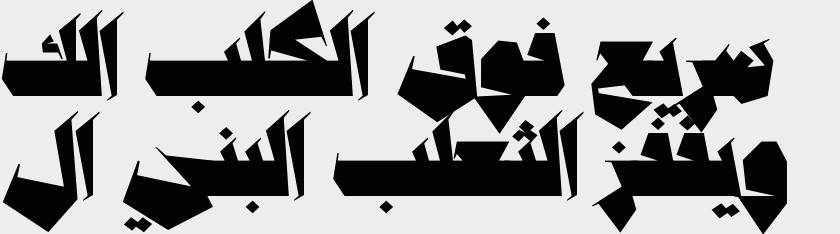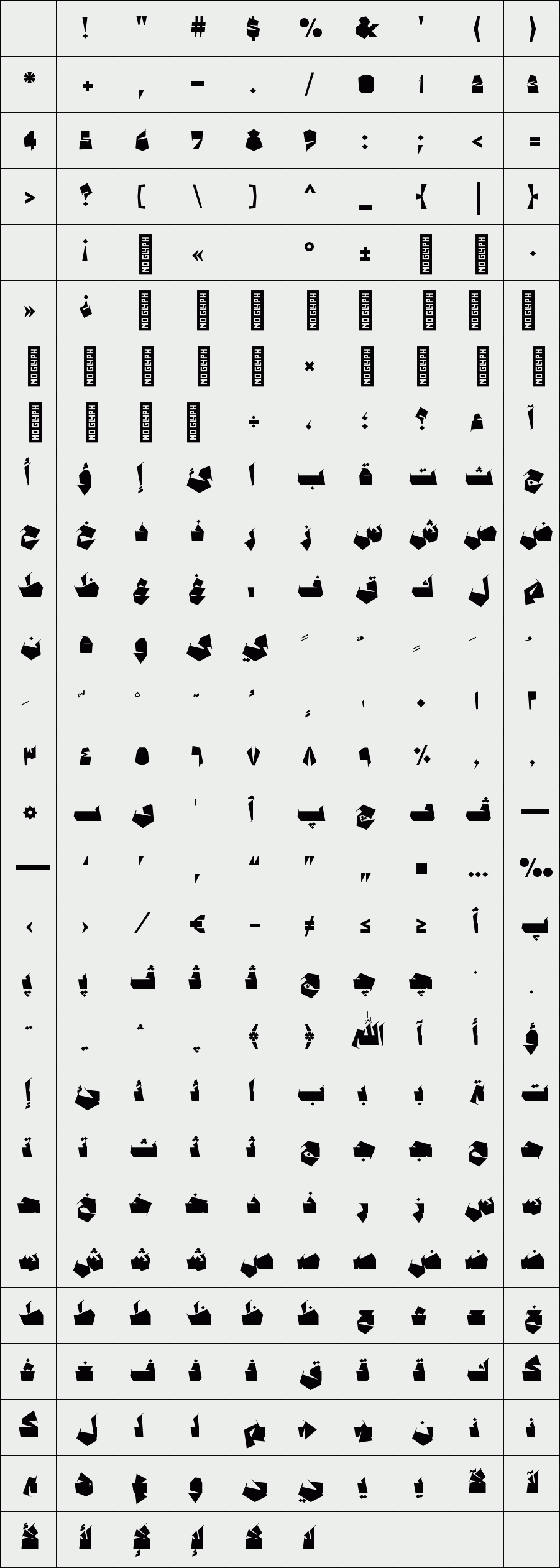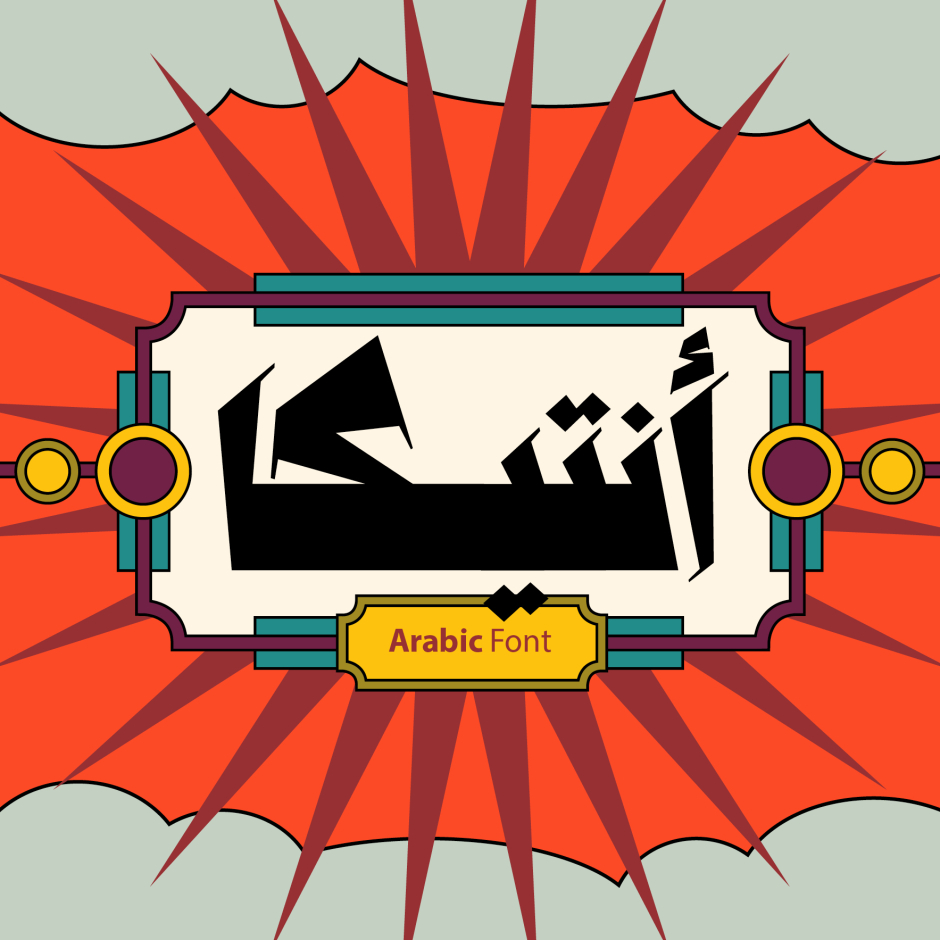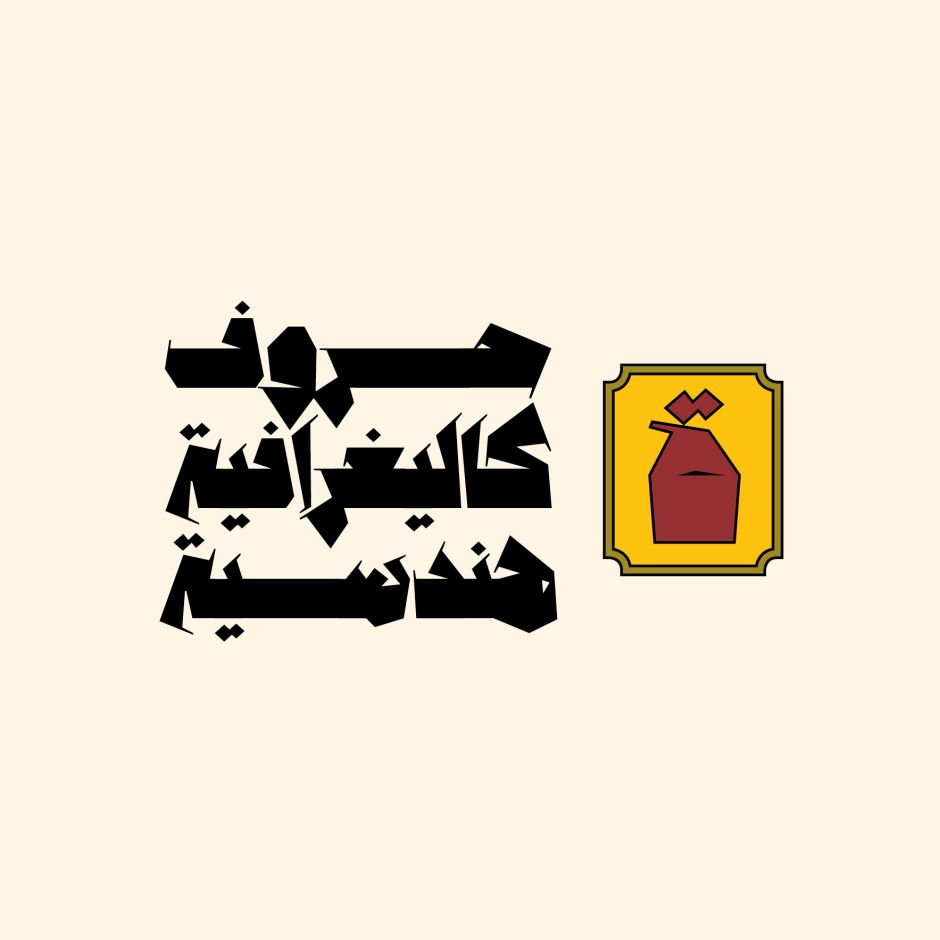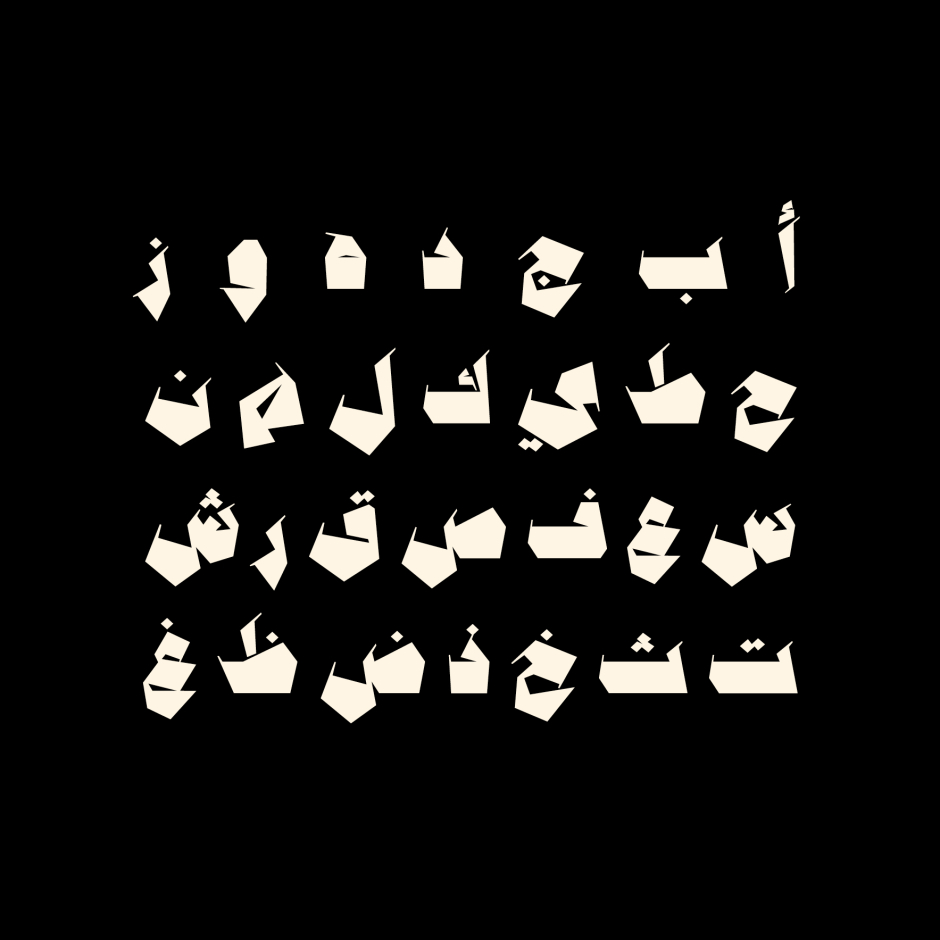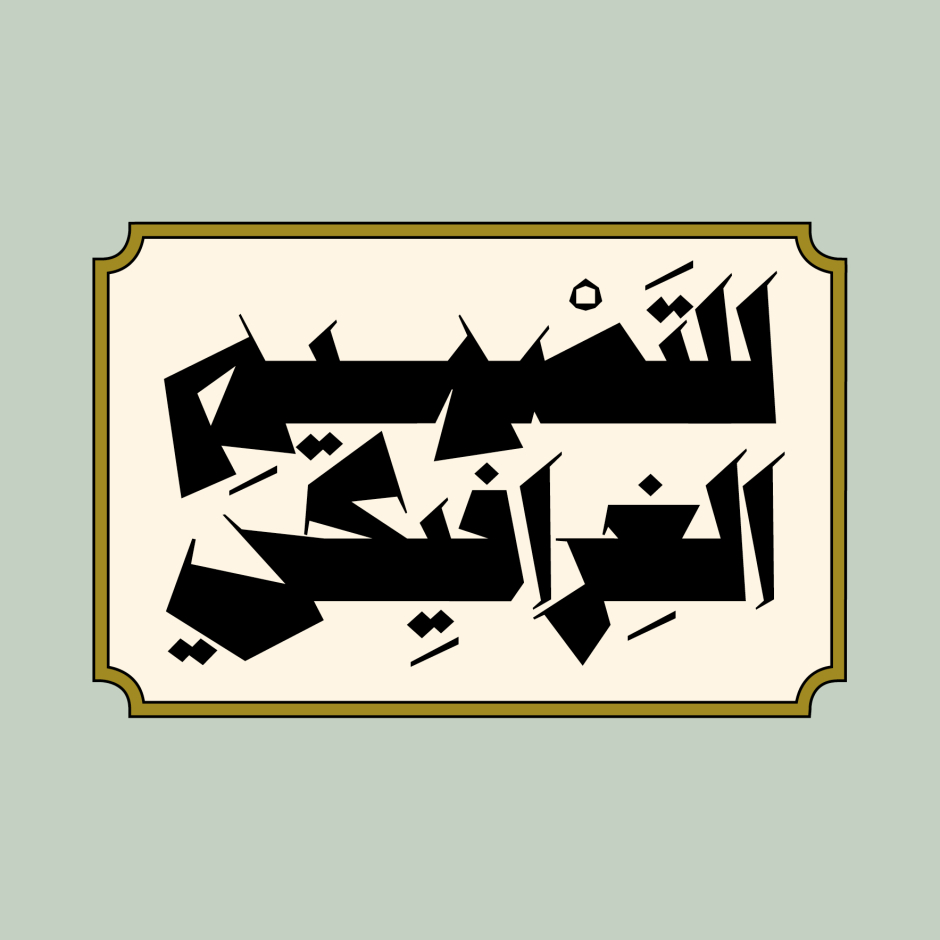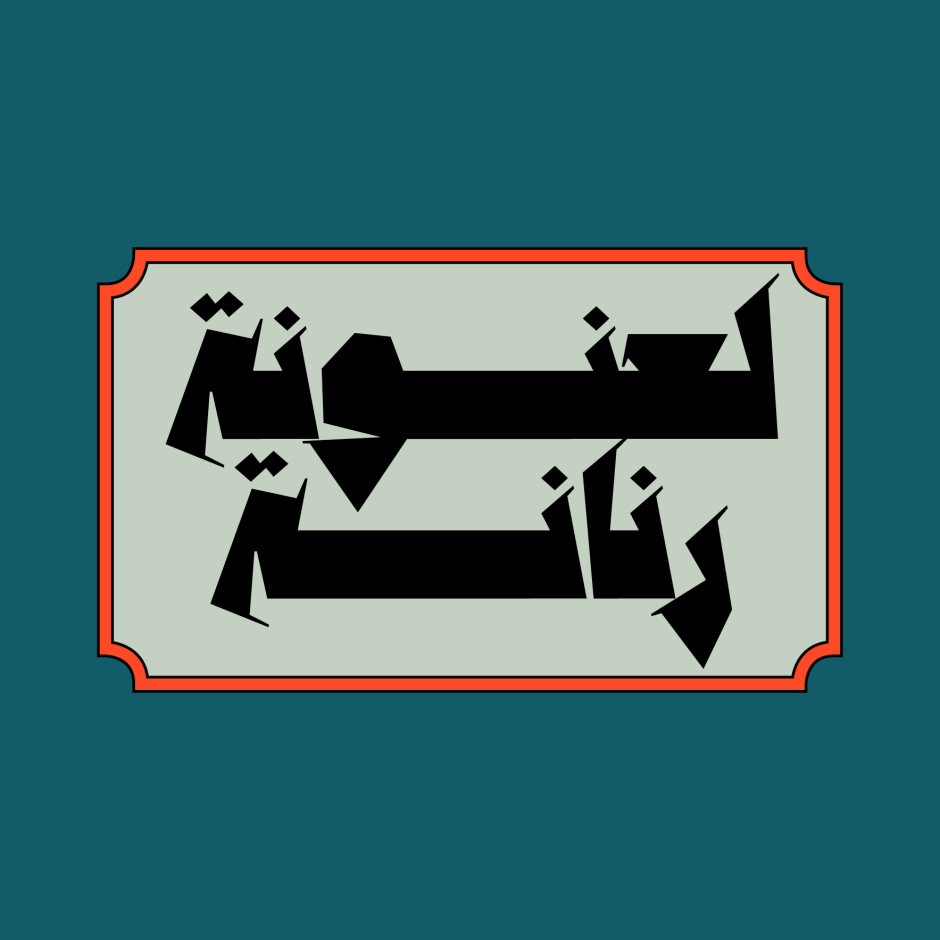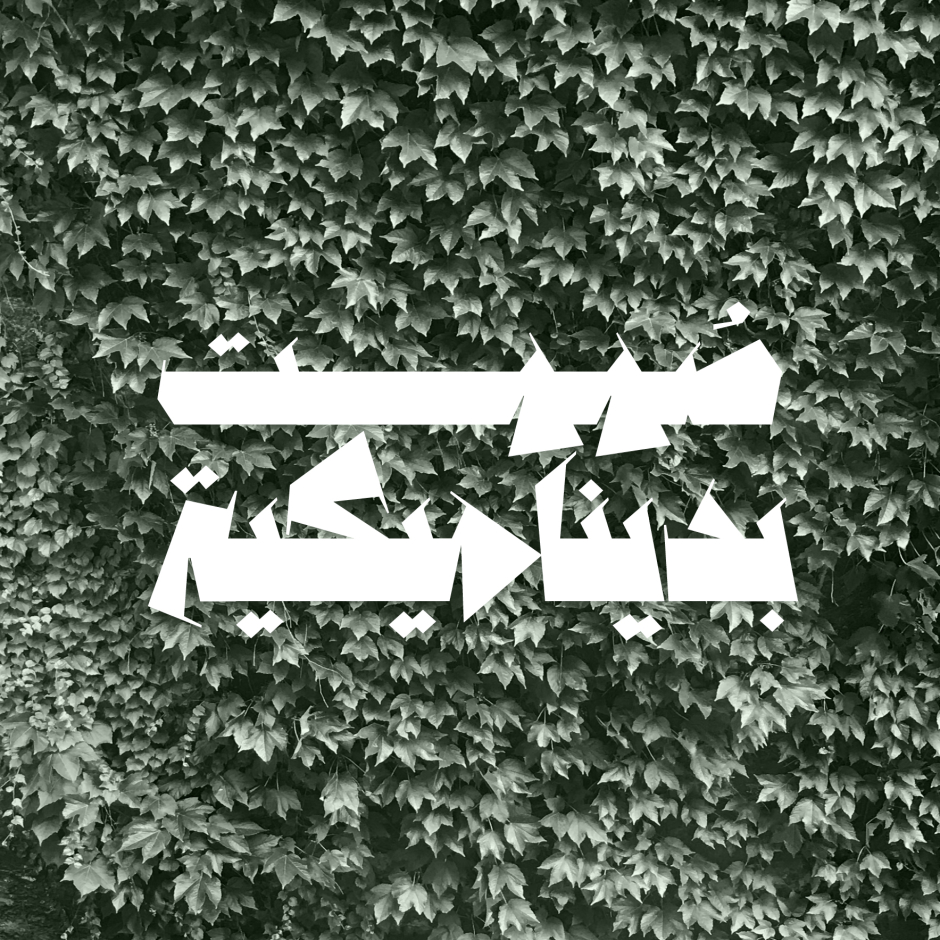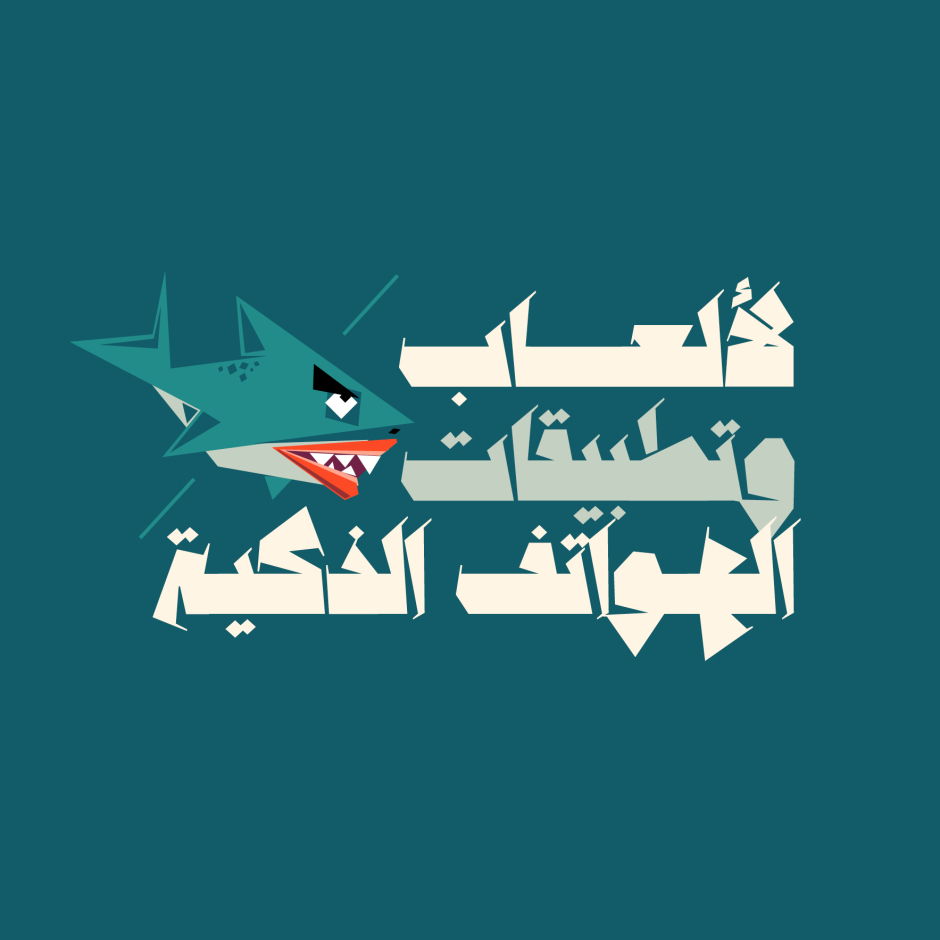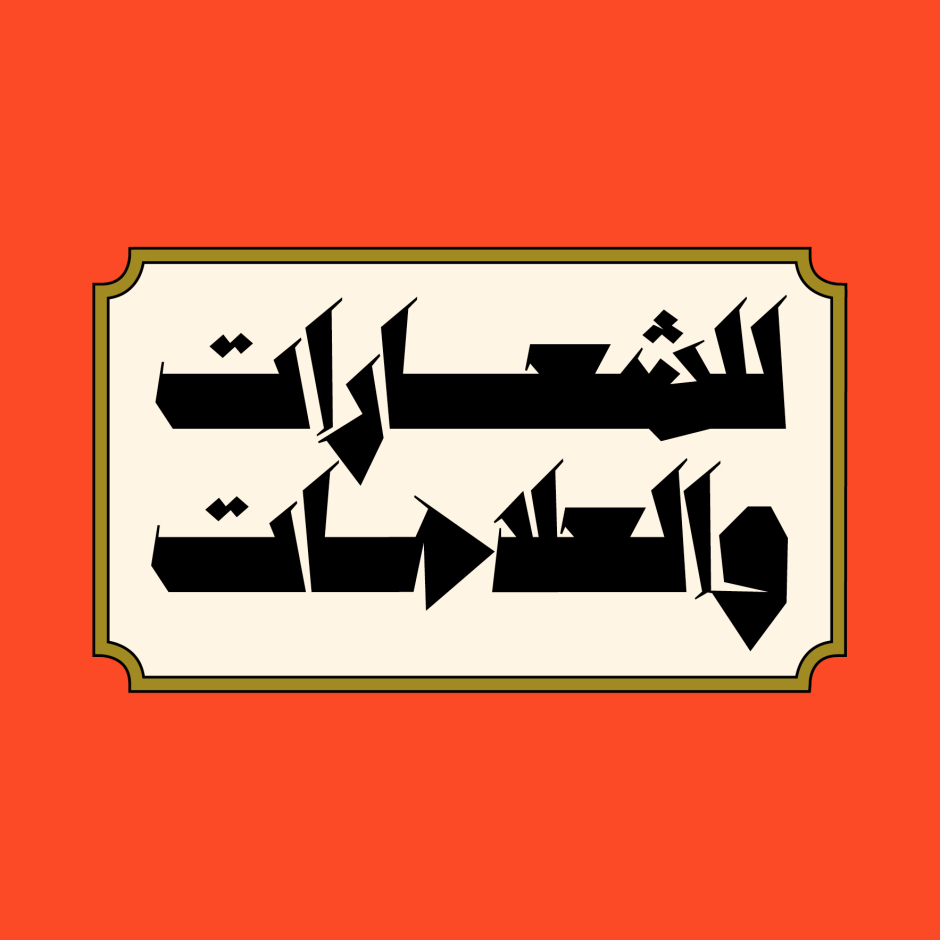
Anteeqa
Anteeqa (the Arabic slang for 'Antique') is an Arabic display font that features a distinctive blend of geometric letterforms infused with traditional Arabic calligraphy. The font is suitable for branding and creative titlings in all modern design projects including web, print and mobile applications. Anteeqa supports Windows, Mac and mobile applications.